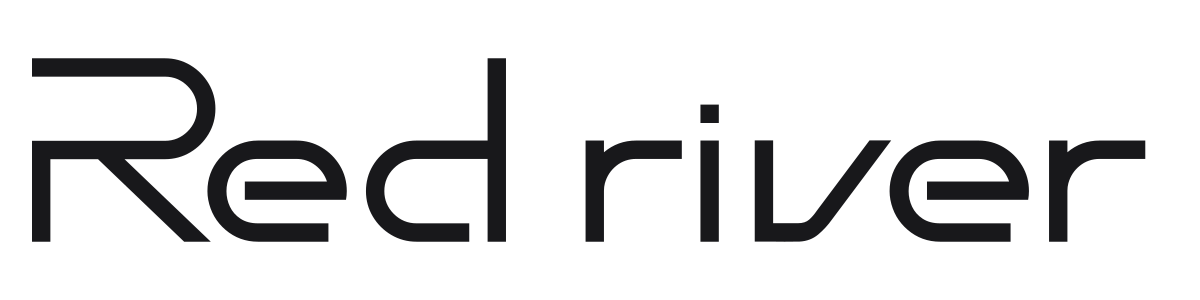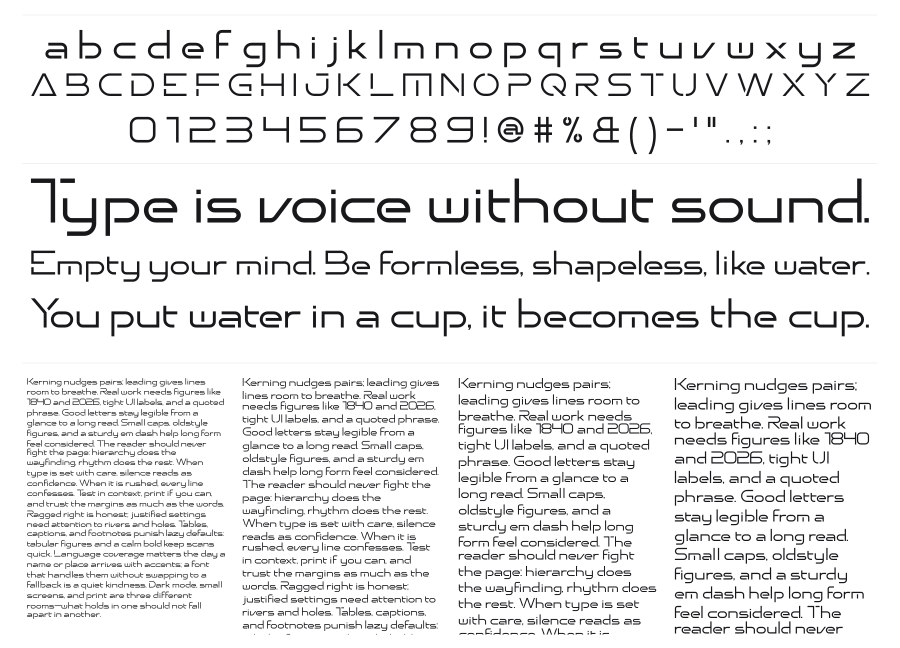
Red river
Red River is a wide geometric sans with soft rounded terminals and a near-monoweight stroke. Its generous proportions and subtle quirks give it warmth without sacrificing its clean, contemporary feel. A natural choice for branding, packaging, and typographic logos that need modernity without coldness.